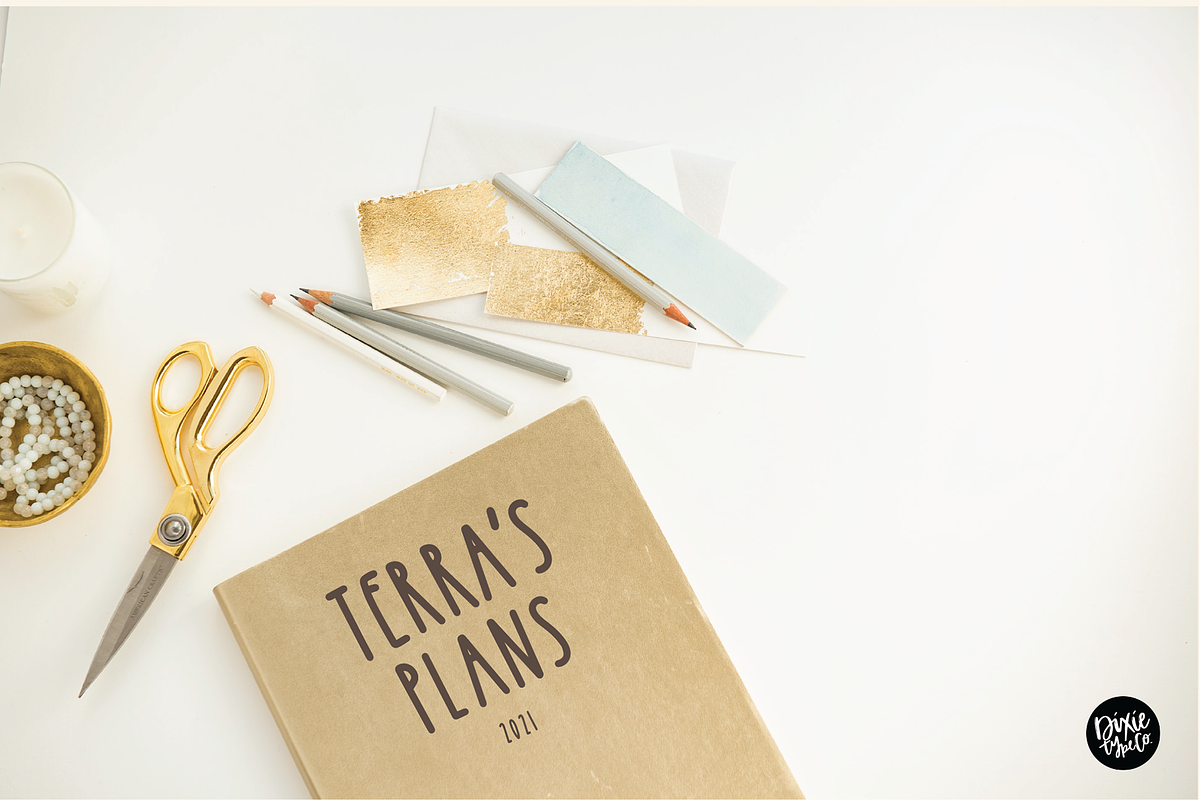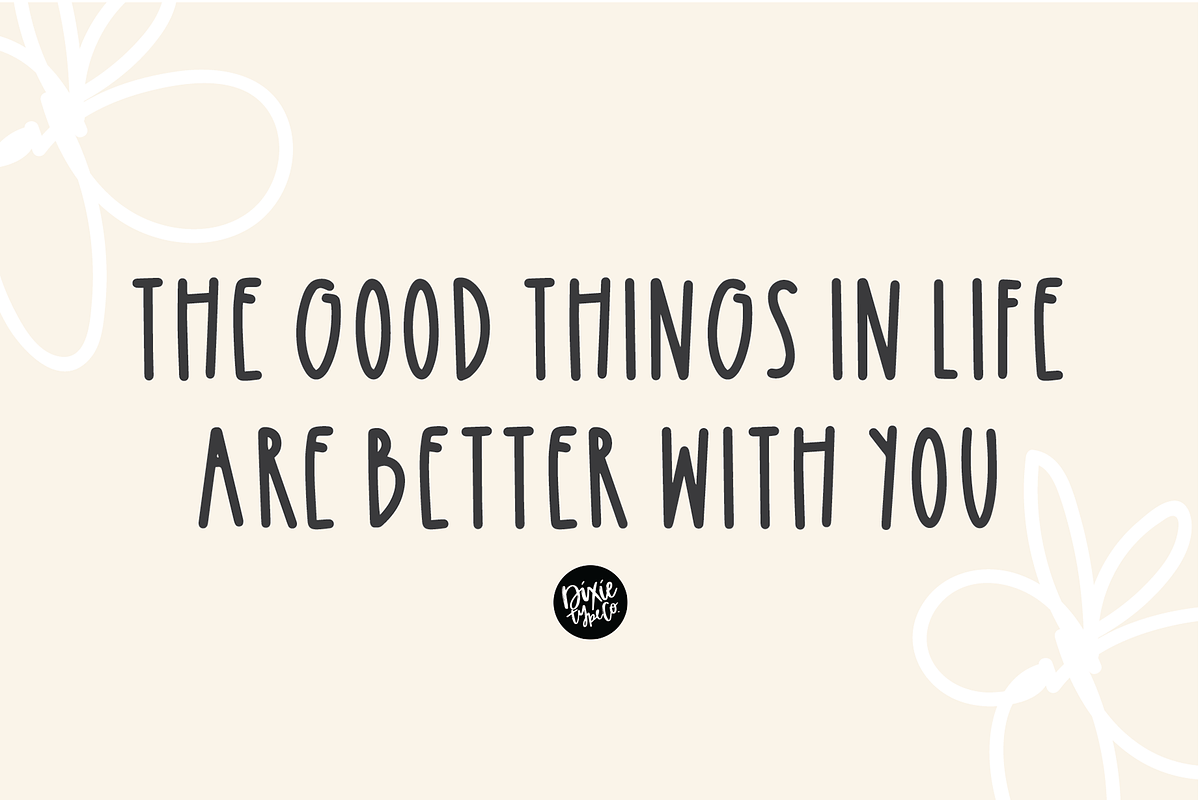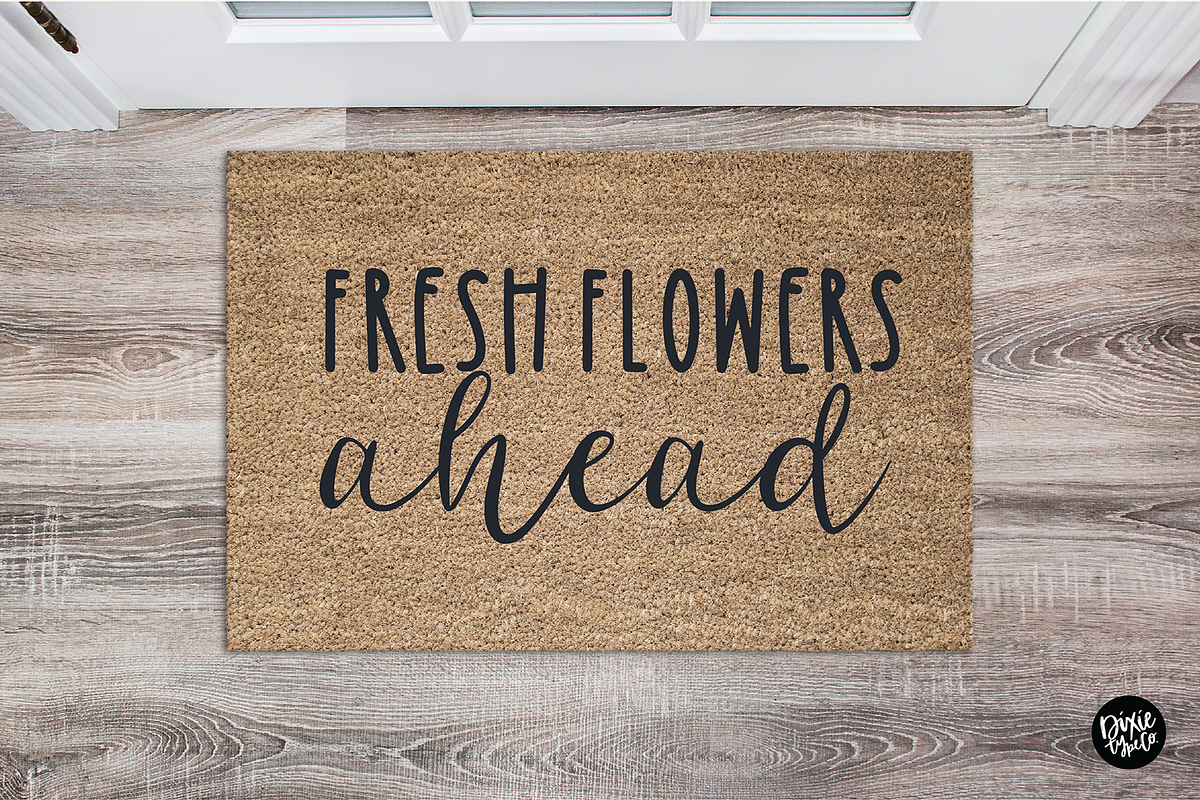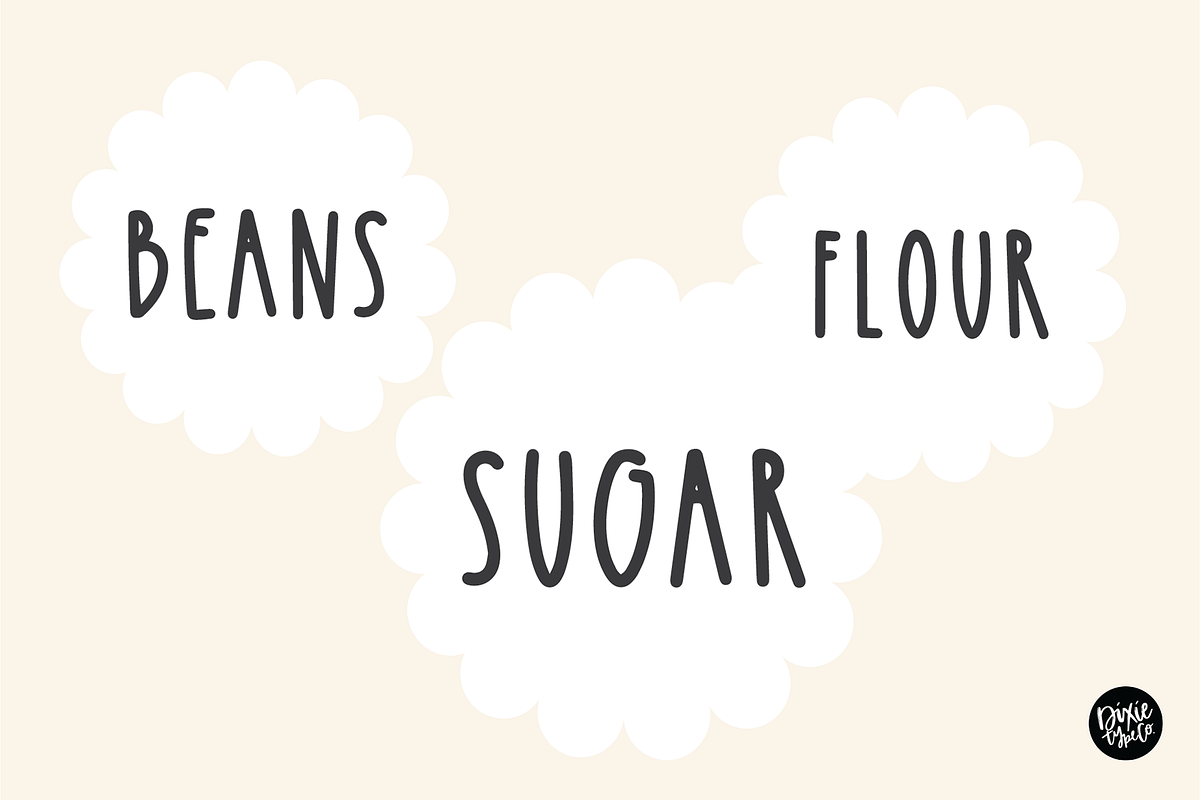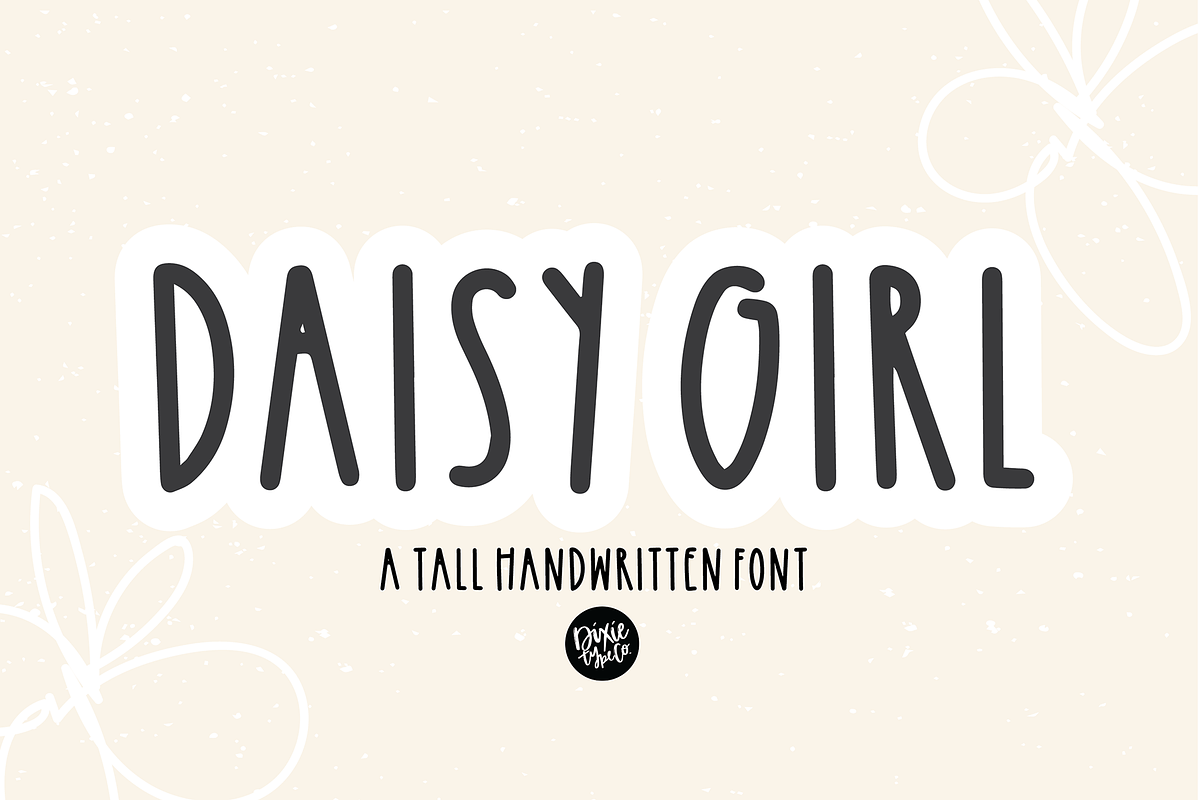
DAISY GIRL a Tall Handwritten Font
"Daisy Girl" is a handwriting sans serif installable font. This font will be titled "DTC Daisy Girl" in your library.
Daisy Girl is a tall, casual handwritten sans serif font that will compliment any script font. This works great in projects that use lots of text. Use it on craft projects, party invitations, home decor, signs, etc.!